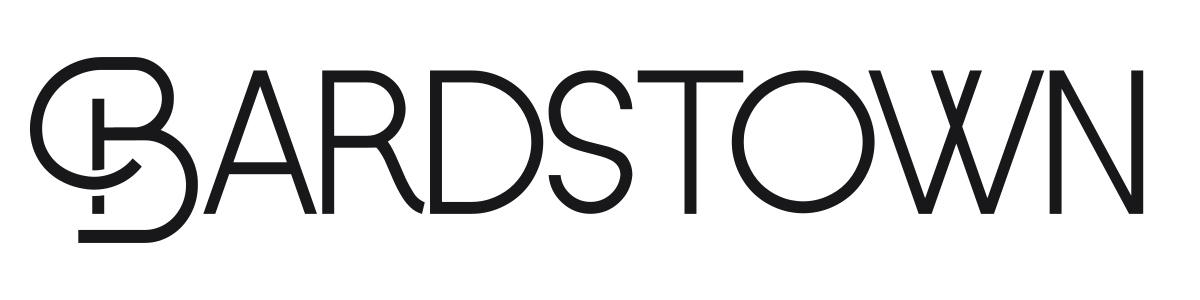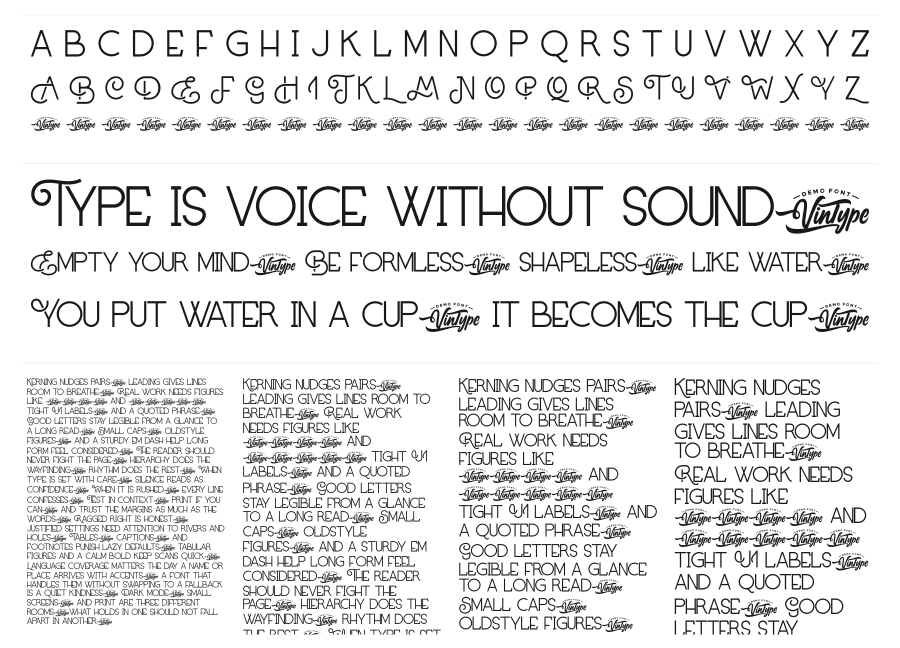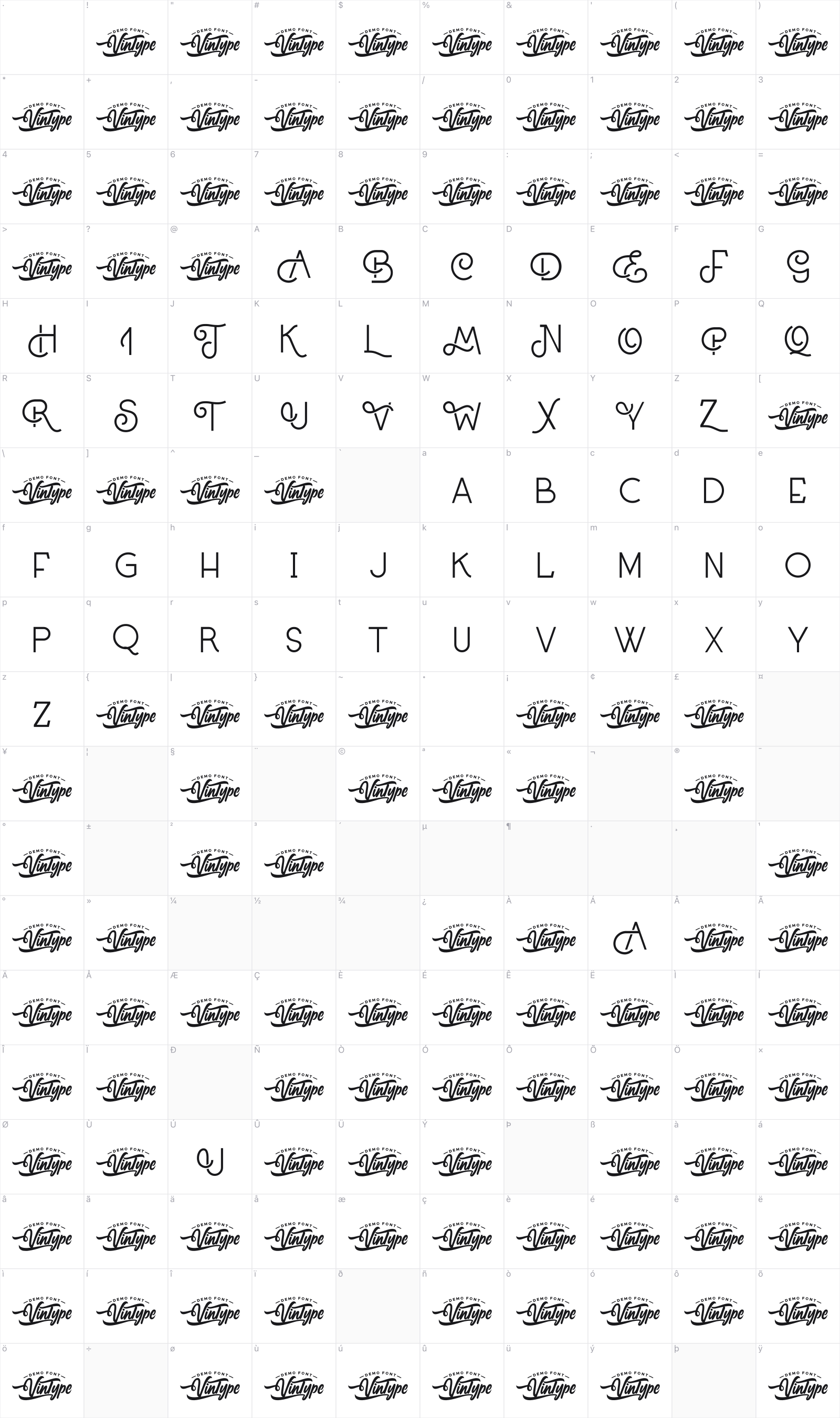
Bardstown
Bardstown is a thin geometric sans-serif built on strict circular forms with a clear Art Deco lineage. Its wide proportions and hairline weight give it an airy, high-fashion quality that works confidently at large display sizes. The restrained construction keeps it feeling modern rather than nostalgic.